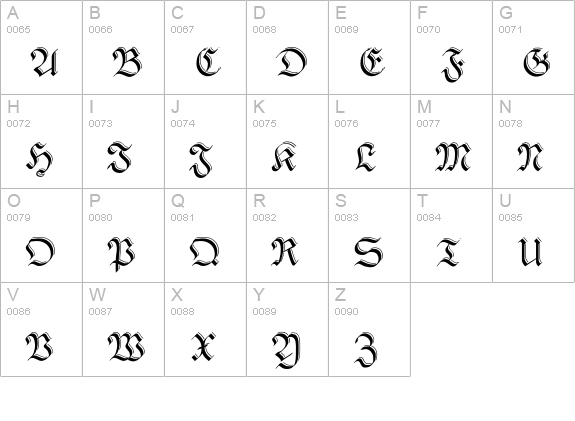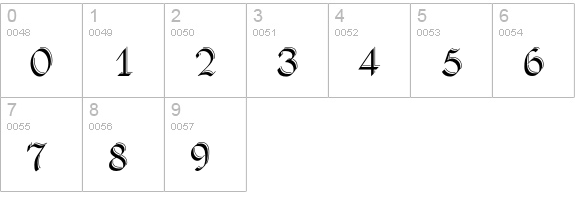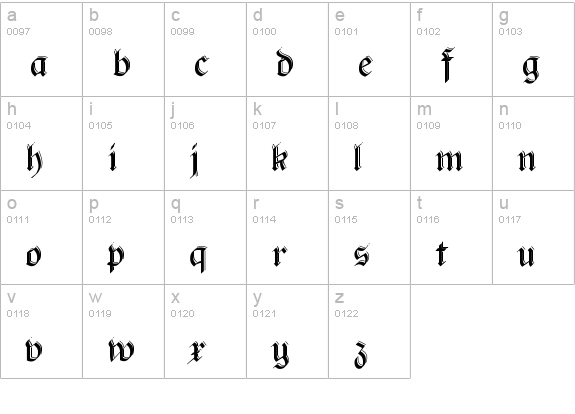
Sheffield Font Details
Introducing Sheffield, a beautifully crafted font that exudes elegance and sophistication. With its refined curves and graceful strokes, Sheffield is the perfect choice for adding a touch of class to any design project. Whether you're creating wedding invitations, branding materials, or editorial layouts, this font will effortlessly elevate your work to new heights. But what makes Sheffield even more appealing is that it is available for free! That's right, you can download this stunning font without spending a dime. Thanks to FontsMarket.com, Sheffield is freely accessible to all designers and enthusiasts who appreciate the power of typography. So why wait? Unlock the potential of your designs with Sheffield and watch as your creations come to life with unparalleled style and grace. Download this exceptional font today at FontsMarket.com and embark on a journey of endless creativity. Don't miss out on the opportunity to enhance your projects with this remarkable typeface that is just a click away.